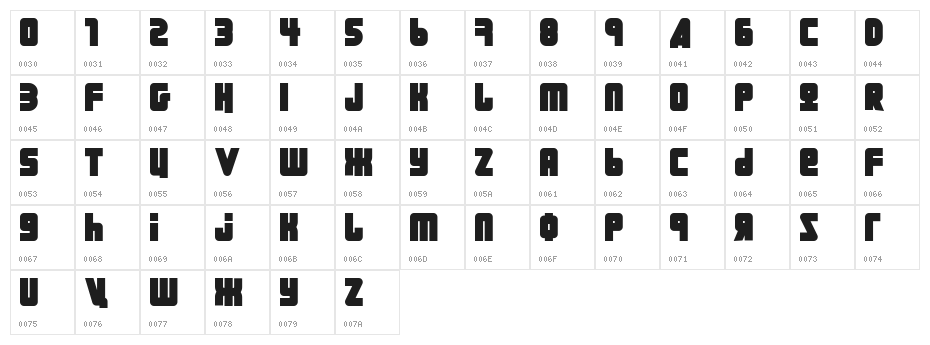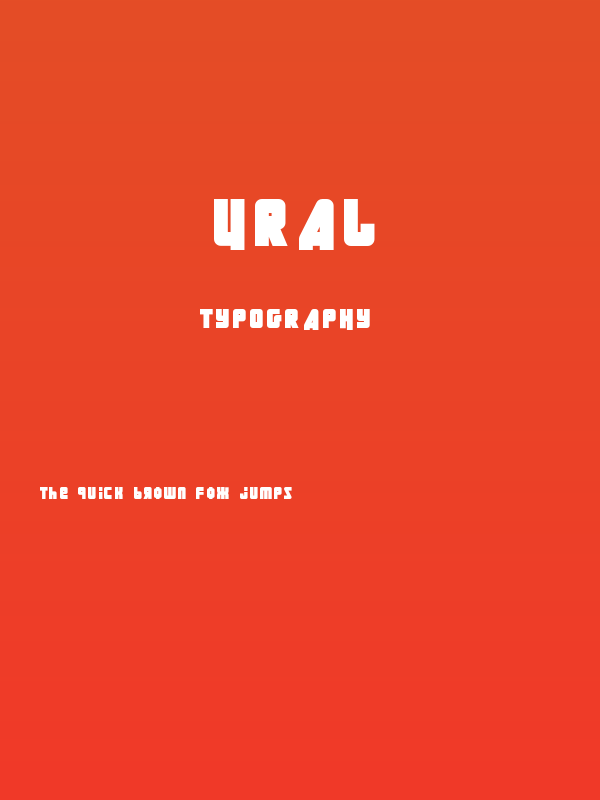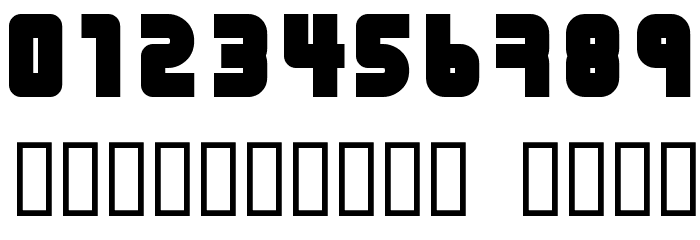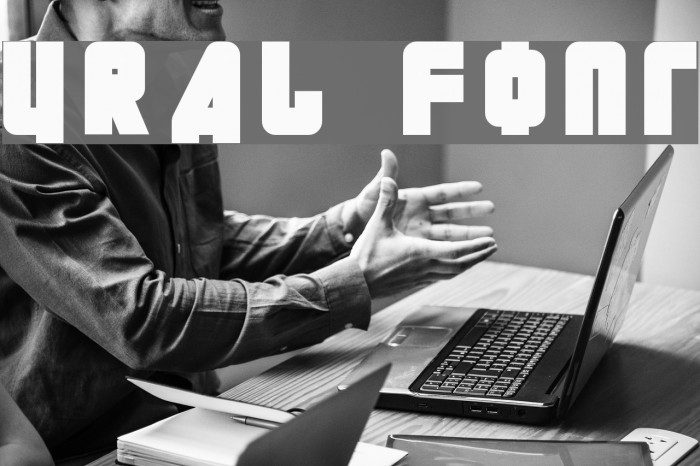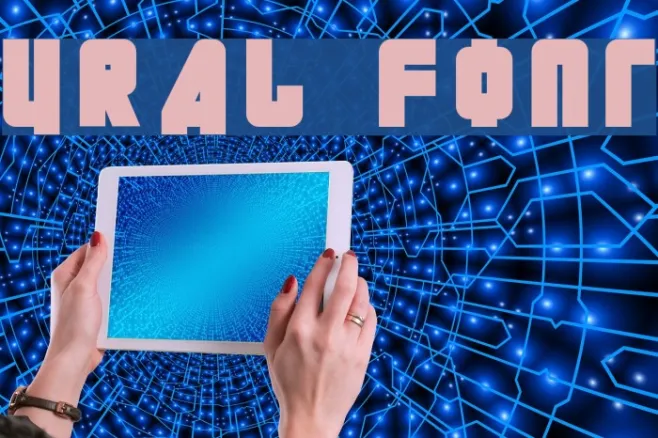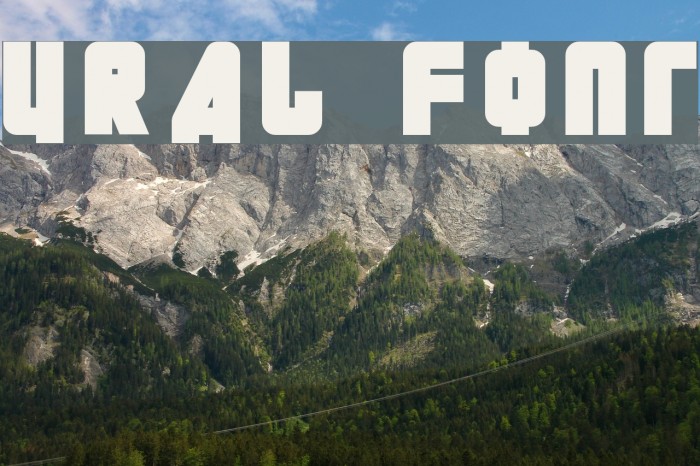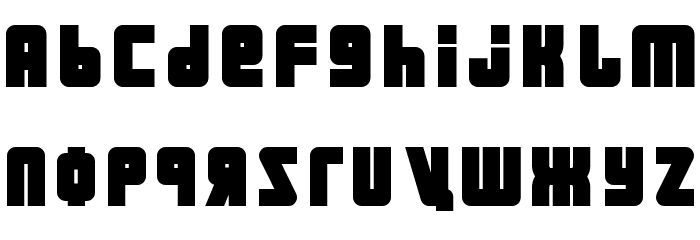
URAL Font
URAL Description
This font features a bold, geometric design with strong, block-like characters. The uppercase letters are uniform in height and width, creating a cohesive and structured appearance. The lowercase letters maintain the same boldness, with some characters having unique, angular cuts that add a modern touch. The numbers are equally bold, ensuring consistency across all characters. Special characters are designed to match the overall aesthetic, with a focus on symmetry and balance. The font's heavy weight and solid structure make it ideal for impactful designs.
| Proposed Projects | Ideal for branding, posters, headlines, and any project requiring a strong visual impact. |